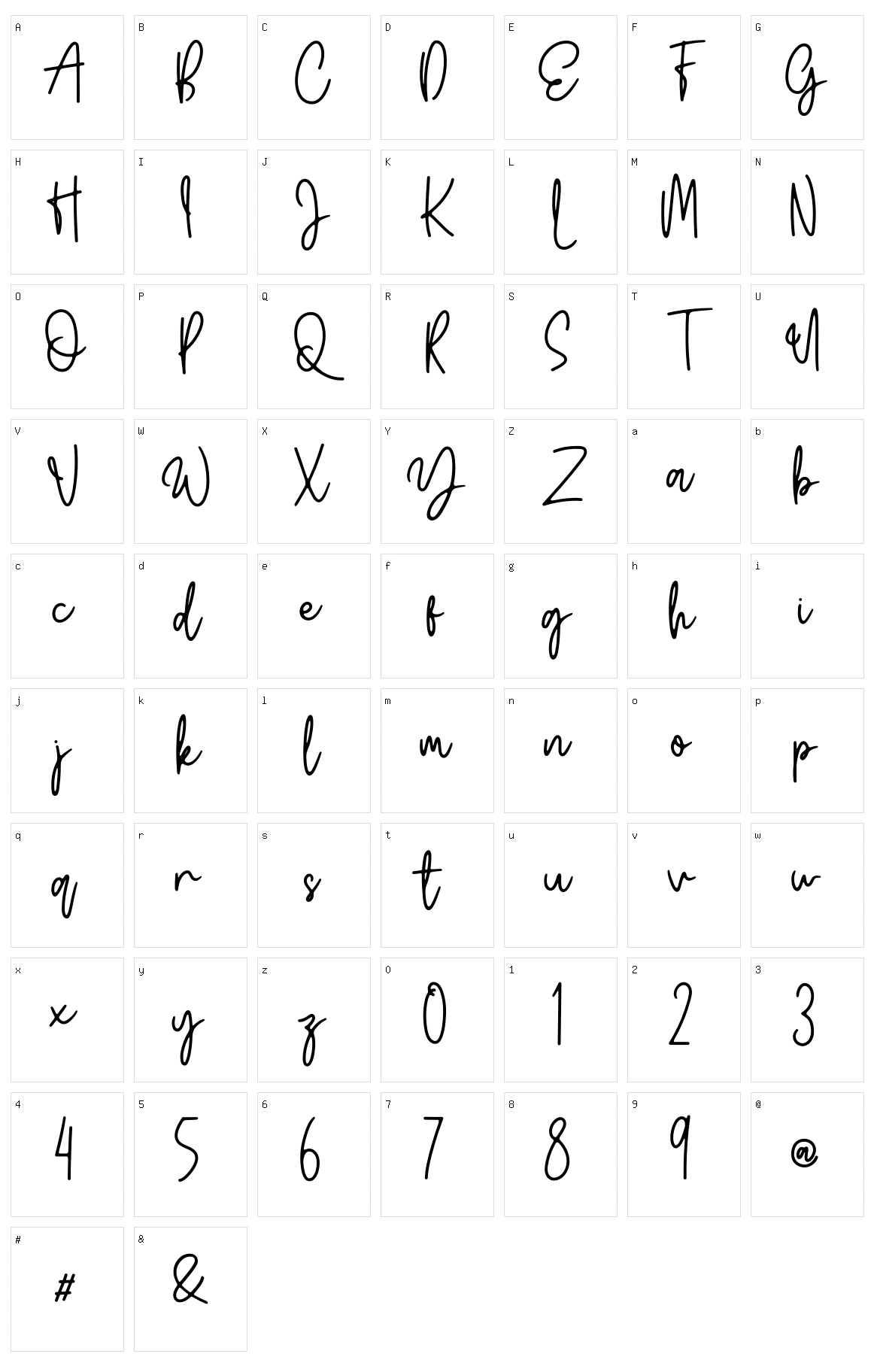
The free font Wildy Sign is carefully designed by Dikas Studio, showcasing a thoughtful balance of creativity and usability and falls under the Script font style. When you download the ZIP file, it contains only 141.63 KB of font files, making it lightweight and quick to download. Please review the license details below to understand permitted usage and distribution rights. If license information is not available, we recommend using this font for personal projects only or contacting the author directly for commercial usage permissions.